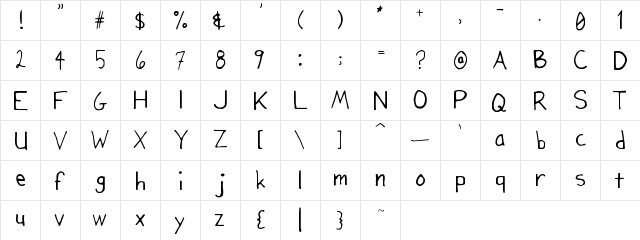
Lynch2 Regular
Design Context for Lynch2 Typeface
Lynch2 offers clean, dependable letterforms without strong stylistic allegiance, making it a practical choice for designers who need flexibility.